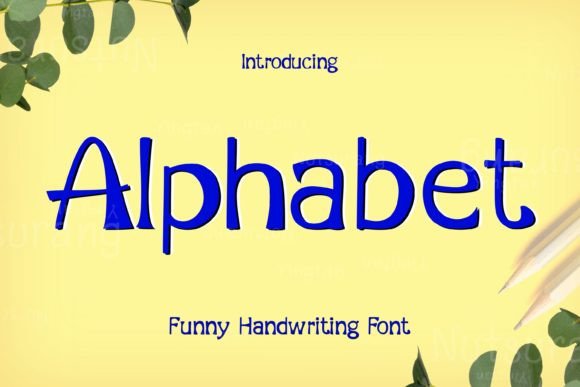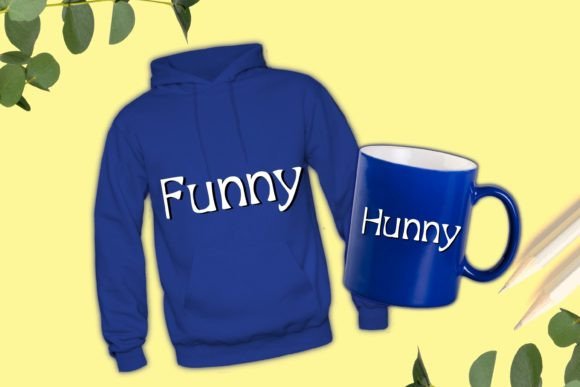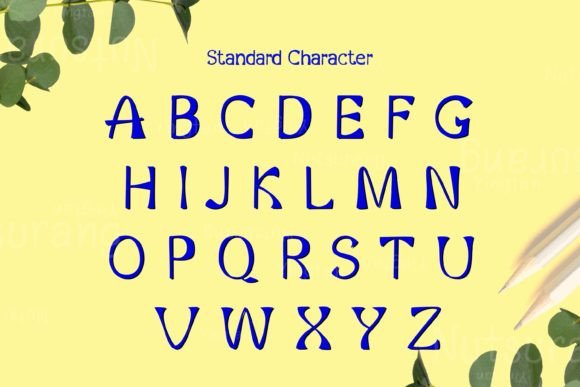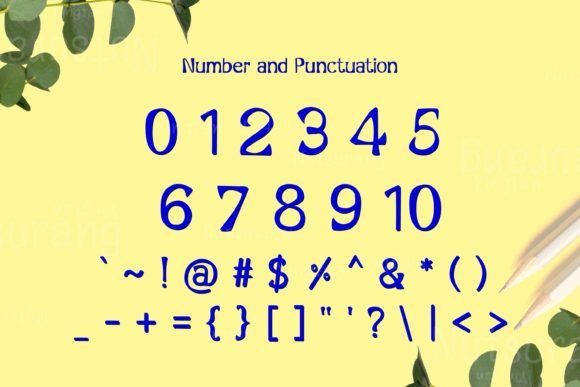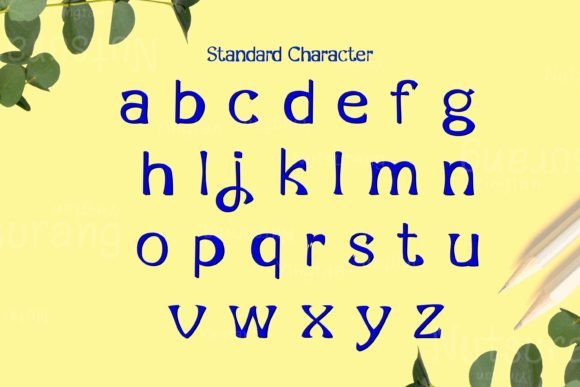
Alphabet Font
About Alphabet Font
“Alphabet” is a font that embodies fun and playfulness, designed with a modern yet whimsical style. Its lively and friendly appearance makes it a perfect choice for projects that require a touch of charm and approachability. By incorporating “Alphabet” into your designs, you can infuse them with a delightful and friendly atmosphere, ensuring they resonate with a wide audience.
**Lively and Playful Design**: The lively and playful design of “Alphabet” makes it visually engaging and delightful. Its whimsical letterforms and playful elements create a sense of fun and creativity, making it suitable for a variety of cheerful and light-hearted projects. The font’s energetic demeanor adds a touch of excitement and joy to the text.
**Modern Whimsy**: “Alphabet” strikes a balance between modernity and whimsy. Its contemporary style gives it a fresh and updated look, while the whimsical elements inject a sense of fantasy and imagination. This combination of modern design with playful charm creates a unique visual appeal, making the font versatile and adaptable.
**Friendly Touch**: One of the standout features of “Alphabet” is its friendly touch. The font exudes warmth and approachability, making it perfect for projects that aim to create a friendly and inviting atmosphere. Its friendly demeanor establishes a positive connection with the audience, enhancing the overall user experience.
**Versatile Application**: “Alphabet” is highly versatile and can be applied to various design contexts. Whether used in branding, social media graphics, children’s books, greeting cards, or product packaging, the font seamlessly integrates into different projects. Its adaptability allows it to enhance diverse creative endeavors, adding a playful and friendly touch.
In summary, “Alphabet” is a font that brings a sense of fun and friendliness to your designs. Its playful and modern whimsical style makes it a valuable asset for projects that require a cheerful and approachable aesthetic. By incorporating “Alphabet” into your creative endeavors, you can create a delightful and friendly visual experience, ensuring your projects are not only visually appealing but also inviting and enjoyable for your audience. Let “Alphabet” be the friendly companion that adds a touch of joy and creativity to your designs, making them truly memorable and engaging.